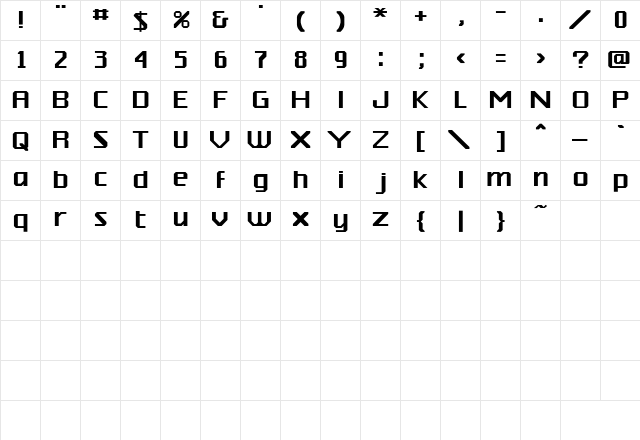
Silicon Regular
Complete Silicon Regular glyph index. Displaying only characters natively supported by Silicon Regular font.
Design Context for Silicon
Silicon is a composed and adaptable typeface that performs quietly and consistently across a wide range of design contexts.